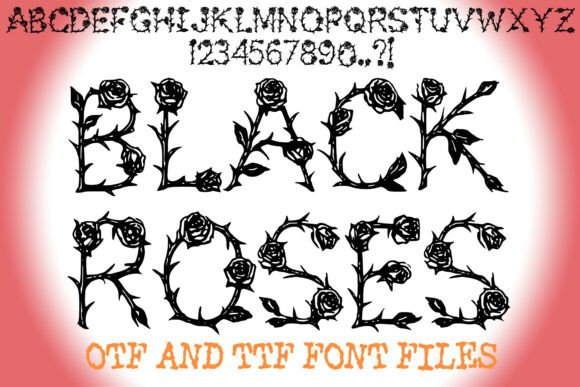
Unveiling the Elegance of Black Roses Font: A Gothic Romance with an Edgy Botanical Twist
In the realm of typography, few fonts capture the essence of gothic romance and botanical elegance as mesmerizingly as the Black Roses Font. This strikingly intricate floral decorative display typeface is constructed entirely of thorny vines and blooming rose motifs, making each character a masterpiece of hand-illustrated art. The Black Roses Font stands out for its unique blend of gothic and botanical elements, offering a fresh perspective for creative projects that demand a touch of dark, romantic flair.
Key Features of Black Roses Font
- Intricate Design: Each character in the Black Roses Font is meticulously hand-illustrated, featuring thorny vines and blooming rose motifs that embody gothic romance with an edgy botanical twist.
- Uppercase Characters: The uppercase characters are designed to stand tall, resembling wild, blooming sculptures that add a dramatic touch to any creative project.
- Ideal for Display Settings: The dramatic visuals of the Black Roses Font are best showcased in large display settings, such as creative headlines, where the detailed floral design can be fully appreciated.
Ideal Uses for Black Roses Font
The Black Roses Font is incredibly versatile, making it suitable for a variety of creative projects. Some of the ideal uses for this font include:
- Tattoo Concepts: The intricate and gothic nature of the font makes it perfect for tattoo artists looking for a unique and expressive typeface to convey their designs.
- Dark Fantasy Covers: Authors and designers of dark fantasy books can use the Black Roses Font to create captivating covers that reflect the genre’s essence.
- Alternative Branding: Businesses in the alternative and gothic niches can leverage the font’s edgy yet elegant design to create a distinctive brand identity.
- Gothic Event Posters: Whether it’s a gothic wedding, a Halloween party, or any other event with a dark theme, the Black Roses Font can be used to create visually stunning posters.
- Artisanal Packaging: The font’s unique design makes it suitable for artisanal packaging, adding a touch of elegance and sophistication to products.
The Significance of Black Roses Font in Typography
The Black Roses Font contributes to the world of typography by offering a distinctive blend of gothic and botanical elements. In an era where digital content dominates, the font’s hand-illustrated nature and intricate design stand out, providing a refreshing alternative to more conventional typefaces.
Typography plays a crucial role in visual communication, and the Black Roses Font exemplifies how creative and expressive typography can elevate a design. By incorporating elements of nature and gothic aesthetics, the font allows designers to convey complex emotions and themes through their work.
Tips for Effective Use of Black Roses Font
To maximize the impact of the Black Roses Font in your designs, consider the following tips:
- Use in Large Display Settings: The font’s intricate design is best appreciated in large display settings. Use it for headlines, titles, or any prominent text that needs to capture attention.
- Combine with Simple Backgrounds: To ensure the font stands out, pair it with simple backgrounds that do not compete with the intricate floral designs.
- Experiment with Colors: While the font’s black and white design is striking, experimenting with colors can add an additional layer of depth and emotion to your work.
- Consider Readability: While the Black Roses Font is stunning, its intricate design may not be suitable for body text. Use it sparingly and consider readability when selecting a font for longer passages.
The Black Roses Font is a unique and captivating typeface that brings a touch of gothic romance and botanical elegance to any creative project. Its hand-illustrated design, available in OTF and TTF formats, offers both aesthetic depth and practical versatility. Whether you’re working on tattoo concepts, dark fantasy covers, alternative branding, gothic event posters, or artisanal packaging, the Black Roses Font is sure to make a lasting impression. By incorporating this font into your designs, you can create visually stunning and emotionally resonant work that stands out in the world of typography.